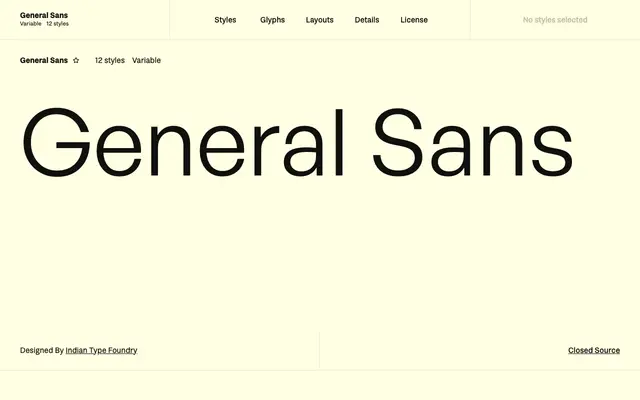
General Sans
Fontshare · Indian Type Foundry · 2021
A rationalist sans serif from Indian Type Foundry with small apertures, geometric capitals and a clean mid-century French sensibility, available in six weights with matching italics and variable fonts.
Designed by Indian Type Foundry and released via Fontshare in March 2021, General Sans draws on rationalist and geometric sans traditions, with tightly closed apertures and orderly letterforms. Details such as a spur-free 'G', single-storey 'g', double-storey 'a', circular dots and wide 'f' and 't' give it a quiet but considered character. The family covers 135 languages across 12 static styles and two variable fonts, with case-sensitive numerals and a full range of superior and inferior figures for fraction setting.
Described explicitly as a rationalist sans serif with geometric capital tendencies, small apertures, and orderly letterforms recalling French mid-century typography. Sits between geometric and grotesque traditions.